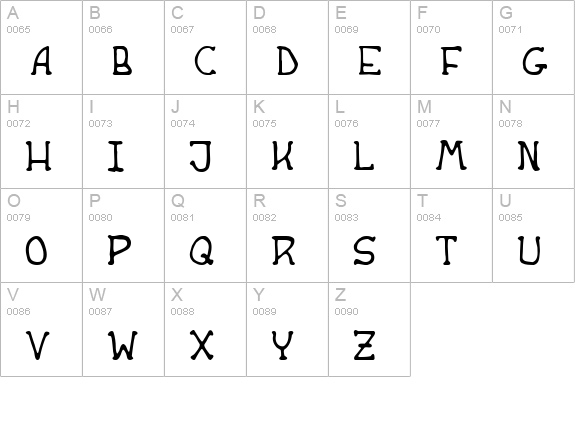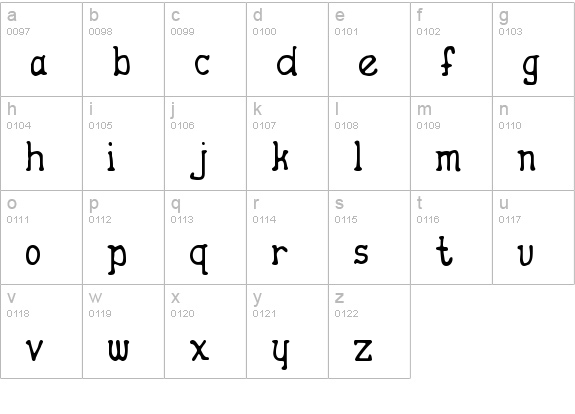
Apple Butter font is a charming and whimsical typeface that effortlessly combines elegance with a touch of playfulness. Its smooth curves and unique letter shapes give any text a delightful and inviting appearance. Perfect for adding a touch of warmth and personality to your designs, Apple Butter font is versatile and suitable for a wide range of projects. Best of all, Apple Butter font is available for free download at FontsMarket.com. Whether you're working on a branding project, creating invitations, or designing social media graphics, this font is a fantastic choice that adds a distinctive flair to any design. Don't miss out on the opportunity to enhance your projects with the delightful Apple Butter font - download it for free today!